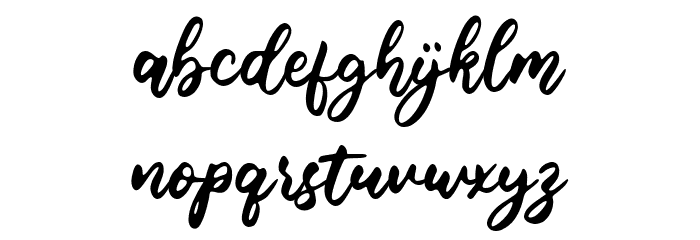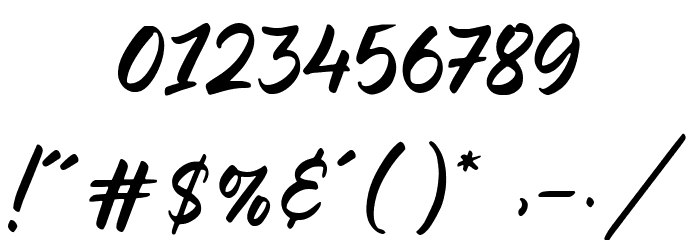
Blondie Rainbow Font
This font features a lively and dynamic script style, characterized by its flowing, cursive letterforms. The strokes are smooth and connected, giving it a handwritten appearance. The uppercase letters are bold and slightly slanted, while the lowercase letters maintain a consistent flow with elegant loops and curves. The numerals and special characters complement the overall style, maintaining the same fluidity and expressiveness. This font exudes a sense of creativity and personal touch, making it ideal for projects that require a warm and inviting feel.
A lively, cursive script font with smooth, connected strokes.
- Font: Blondie Rainbow
- Proposed Projects: Ideal for wedding invitations, greeting cards, personal branding, and creative projects that require a personal touch.
- Category: Script
- Use Case: Logos, Invitations, Greeting Cards